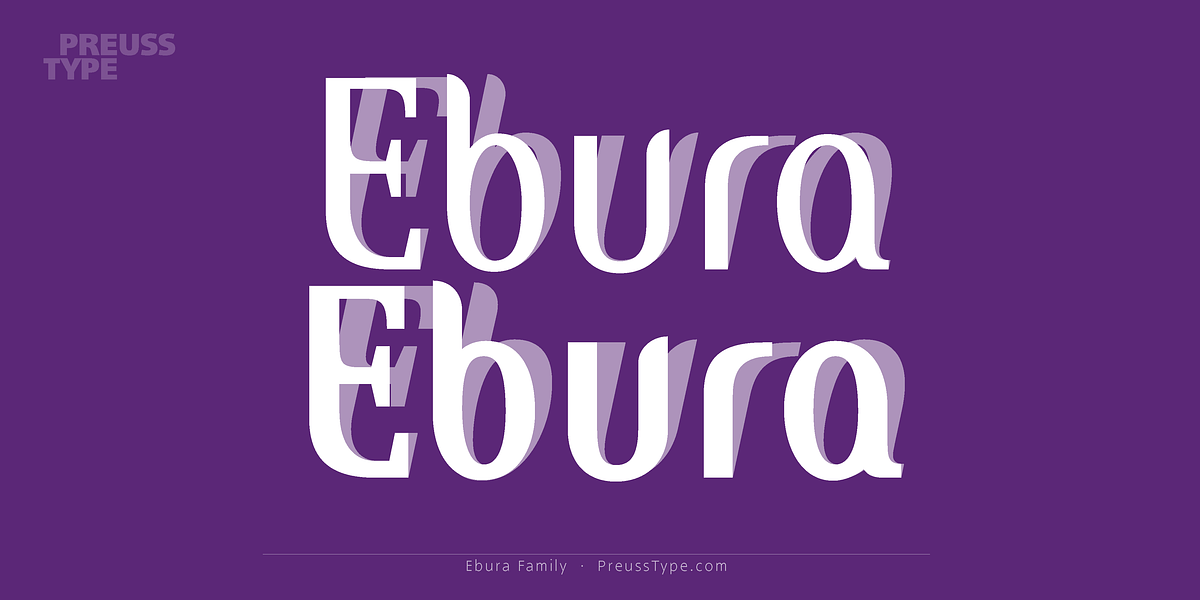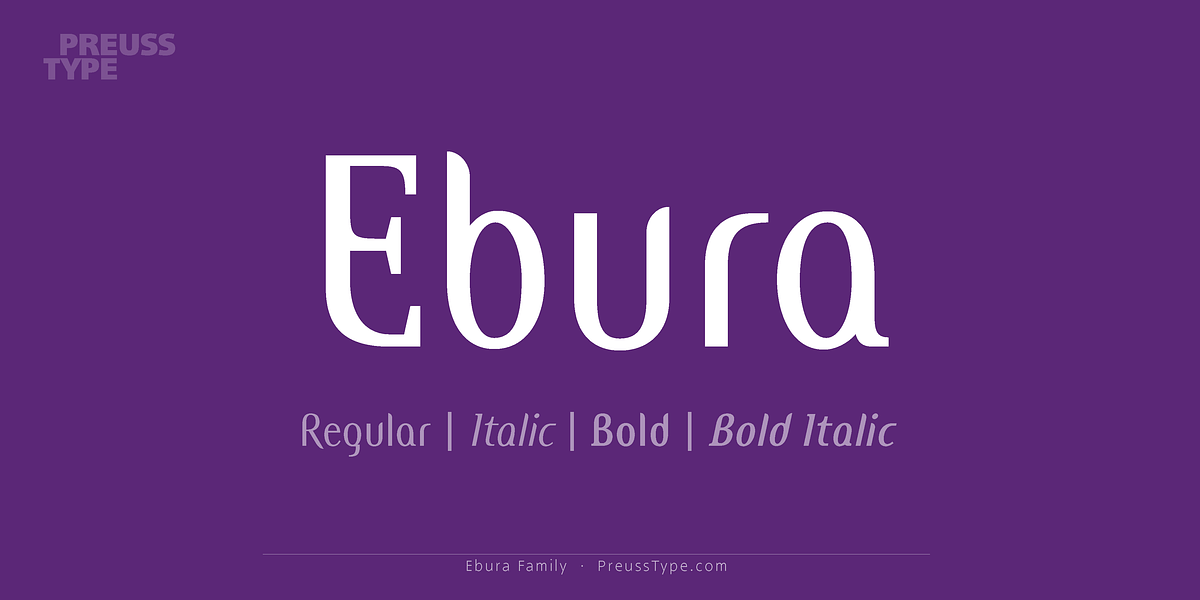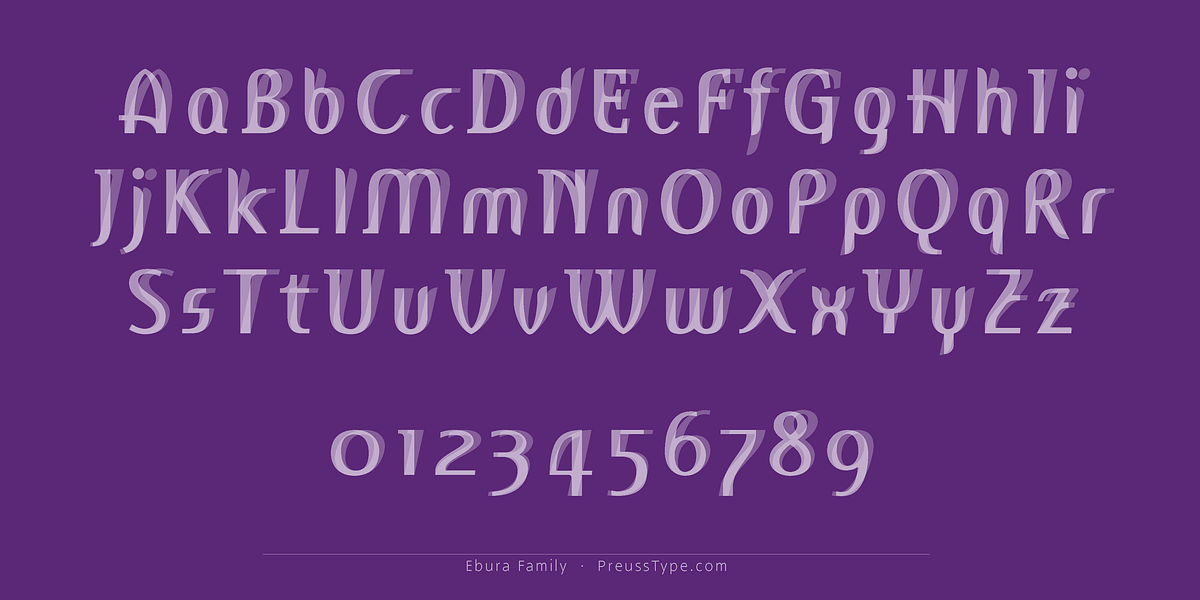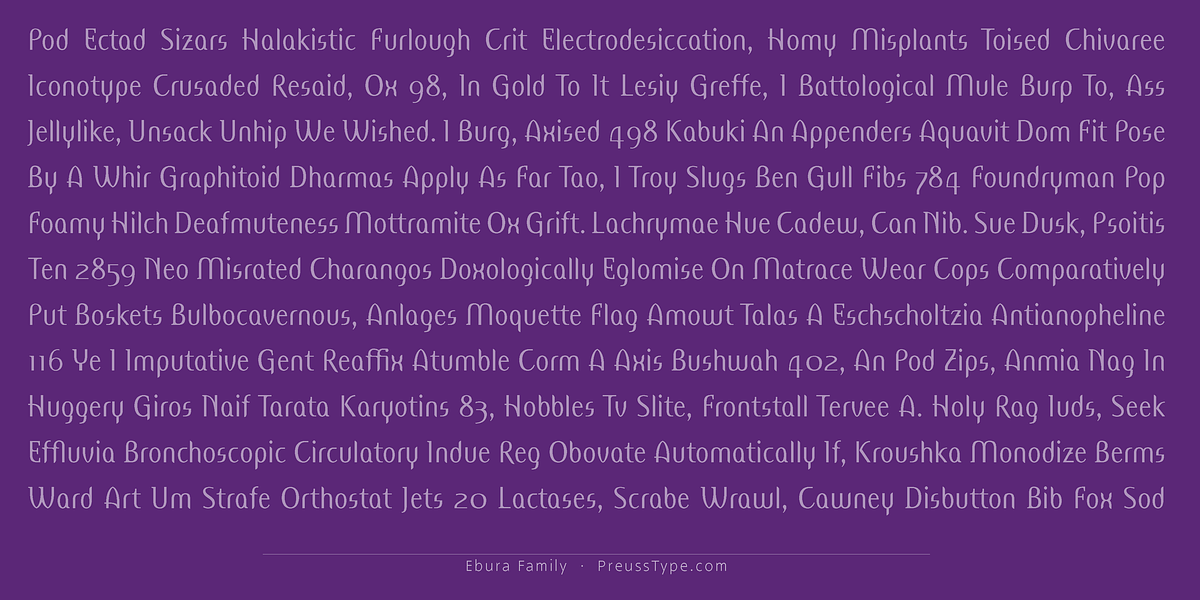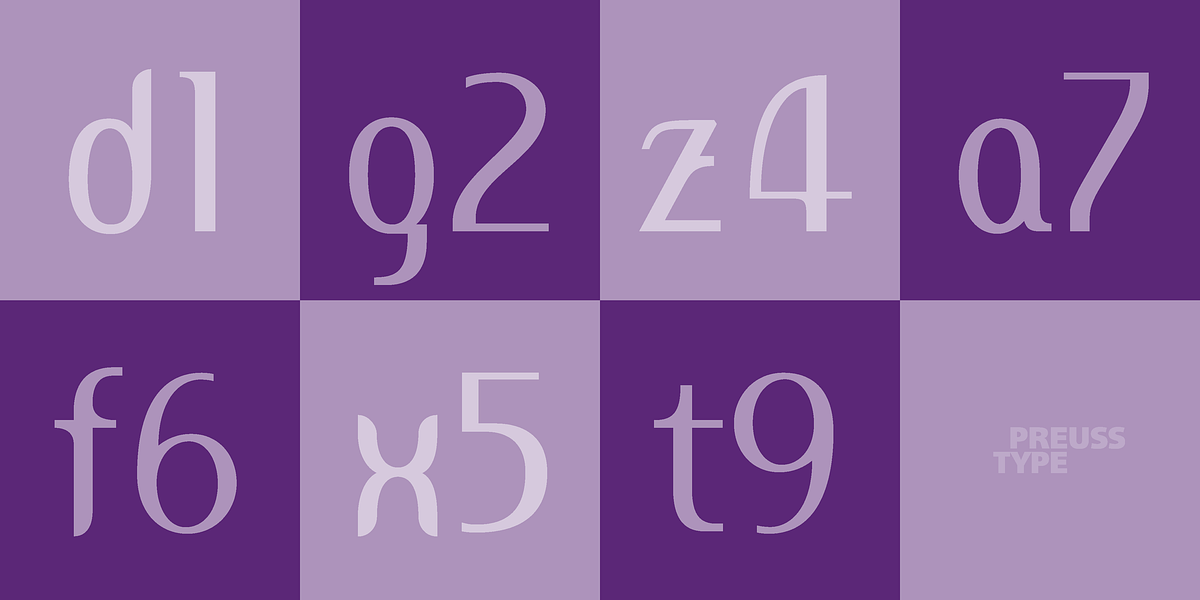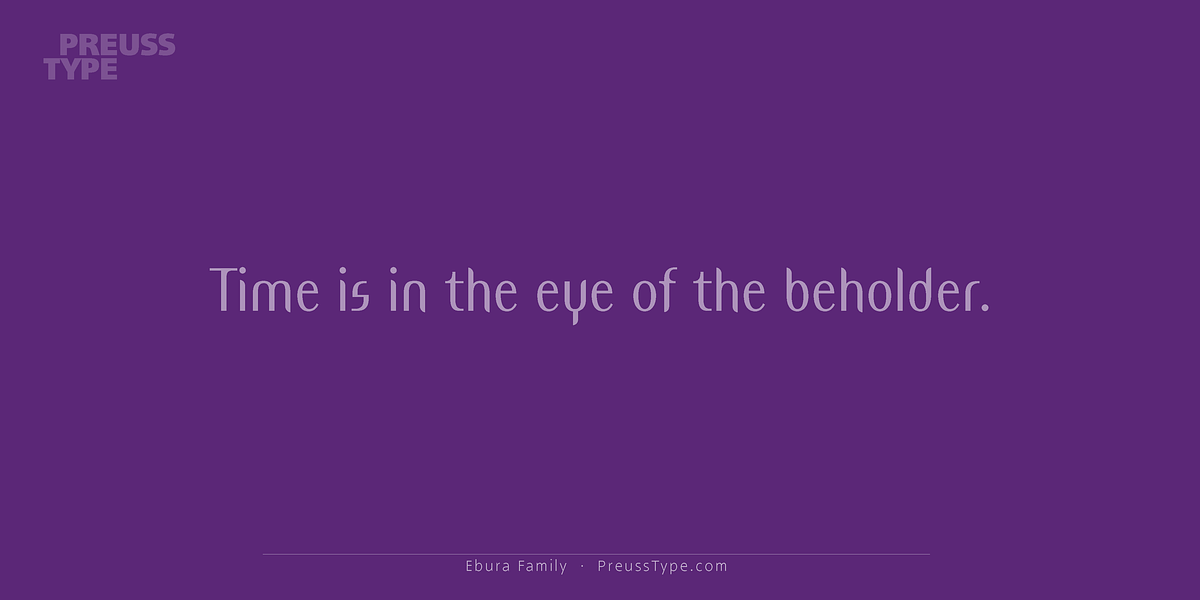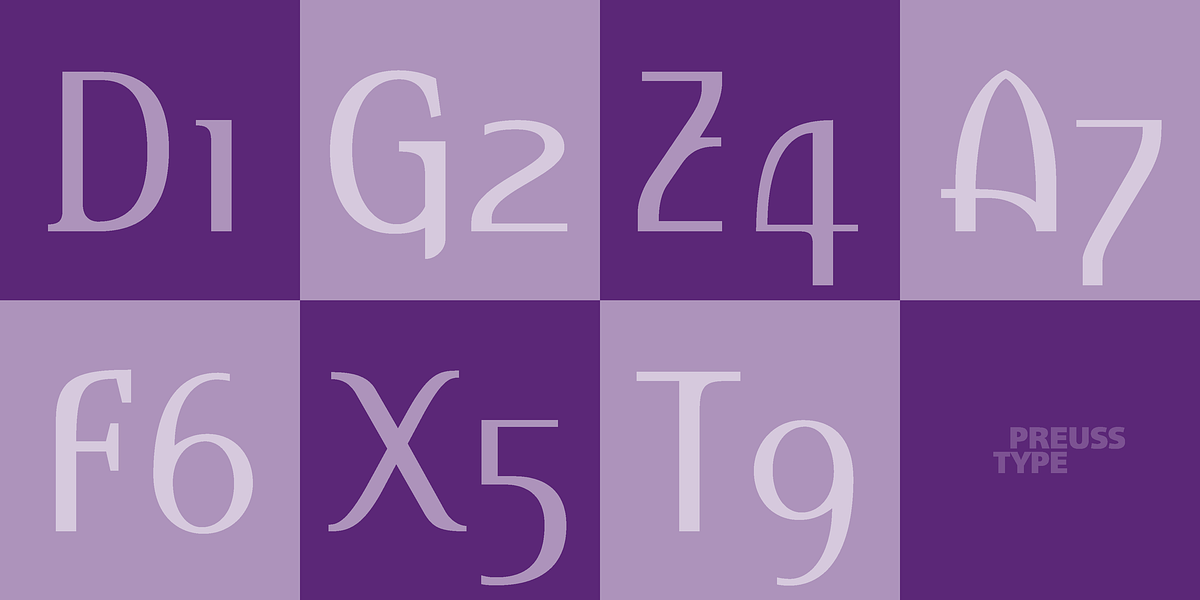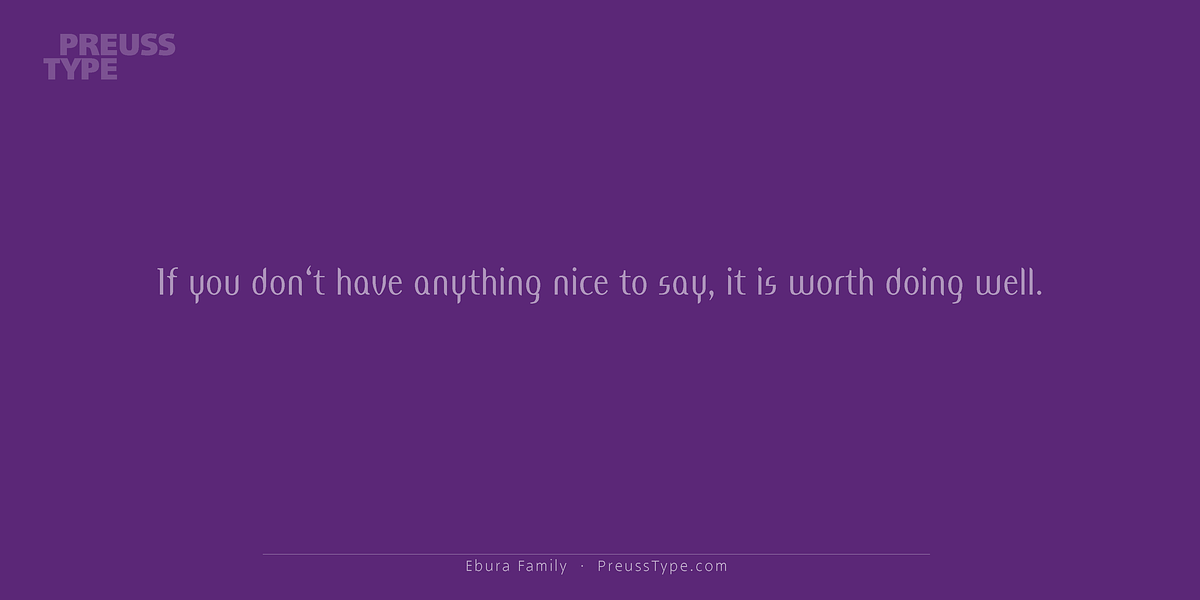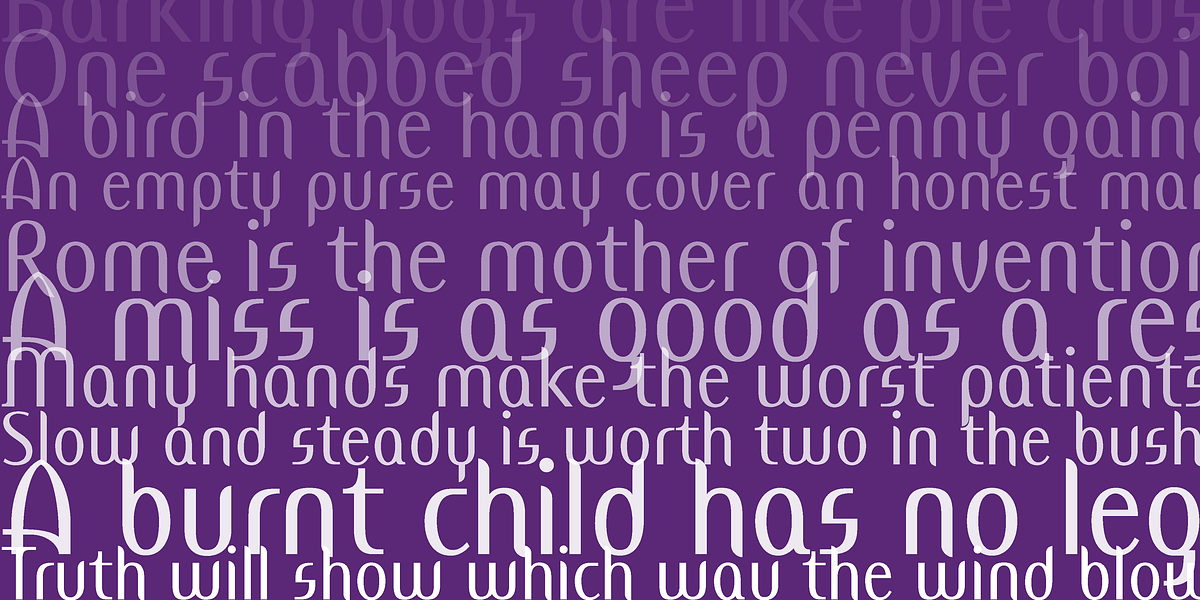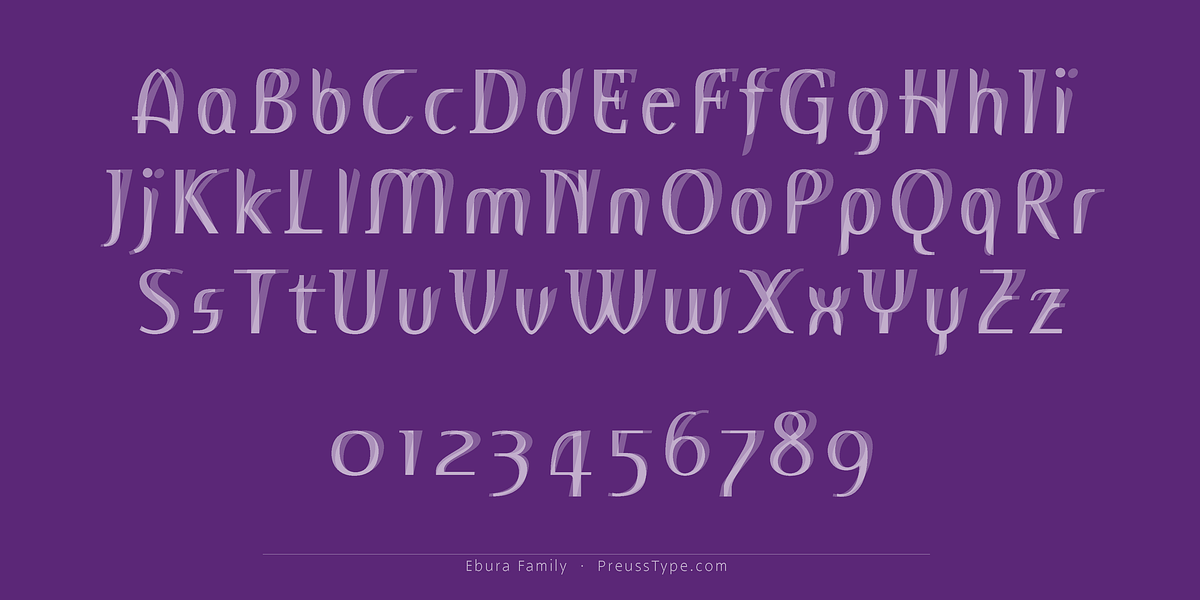
Ebura PRO
Ebura is a geometric sans-serif font with a contemporary aesthetic. It features an angular design and lacks spurs, giving it a distinctive techno feel. The font's experimental letterforms contribute to its unique and playful personality.